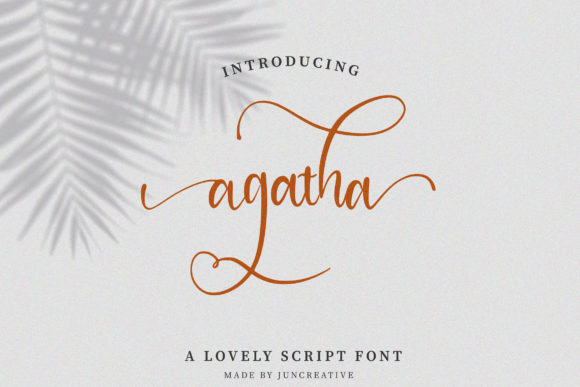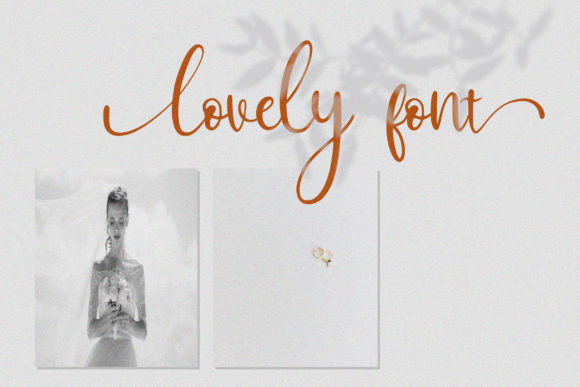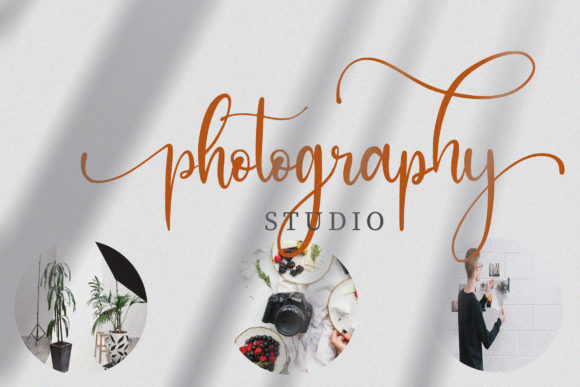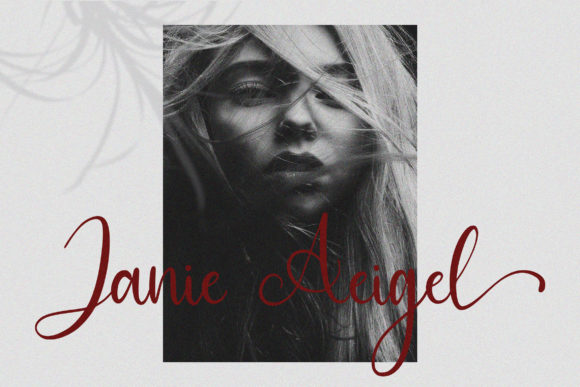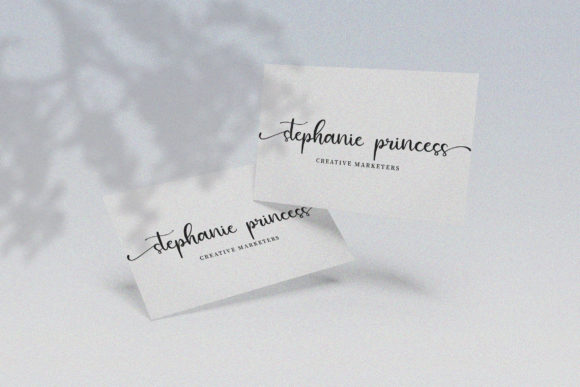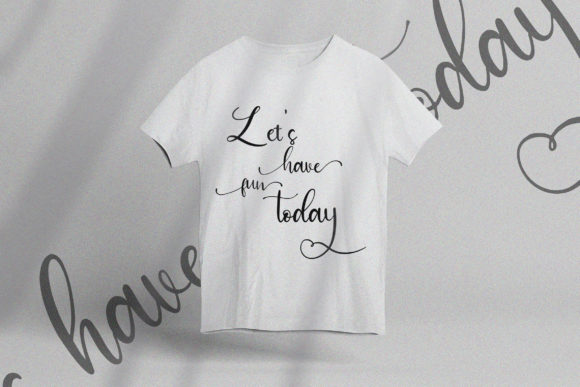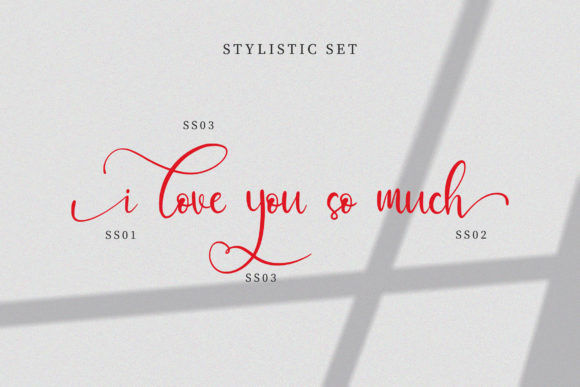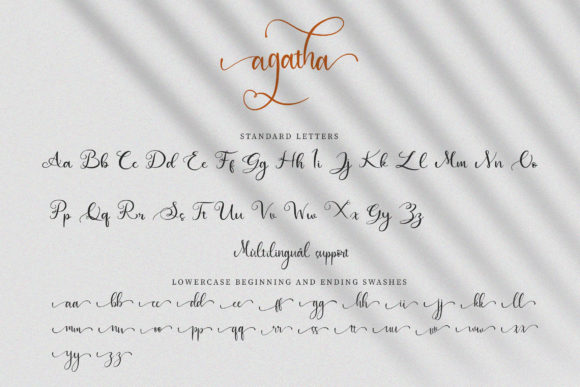
HomeScript FontsAgatha Font Script Fonts Agatha Font FacebookXPinterestWhatsApp Agatha Font Poster 2 Agatha Font Poster 3 Agatha Font Poster 4 Agatha Font Poster 5 Agatha Font Poster 6 Agatha Font Poster 7 Agatha Font Poster 8 About Agatha Font Agatha is a lovely script font with elegant & feminine style. It can add a romantic touch to any design idea! DOWNLOAD ON CREATIVE FABRICAThis font is sold and delivered by Creative Fabrica. Font Canyon may earn a commission if you buy through this link. People also explored The Gap Font Sunshine Font Bubble Font Cutey Mono Font Ollivitess Font Aerial Chain Font Ionia Font Leviossa Font Tiny Love Duo Font 294 0 TagsAgatha Font Previous articleButterscotch FontNext articleElleanor Font LEAVE A REPLY Cancel reply Comment: Please enter your comment! Name:* Please enter your name here Email:* You have entered an incorrect email address! Please enter your email address here Website: Save my name, email, and website in this browser for the next time I comment. Personal Use Free Aragon Personal Use Free Read more about this font The Kingdom Personal Use Free Read more about this font Made of Concrete Personal Use Free Read more about this font Hashira Mt Personal Use Free Read more about this font BLOG How to Install and Use Fonts on Windows, macOS, and Web Projects How to Install and Use Fonts on Windows, macOS, and Web Projects Fonts are a crucial part of design and branding. Whether you’re designing a... Best Fonts for YouTube Videos: Make Your Thumbnails Stand Out Fonts That Capture the Spirit of New York City The 10 Best Handwriting Fonts to Add Personality to Your Designs